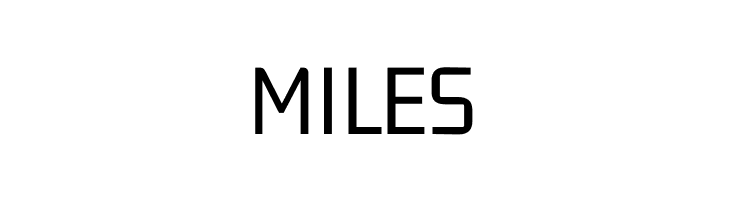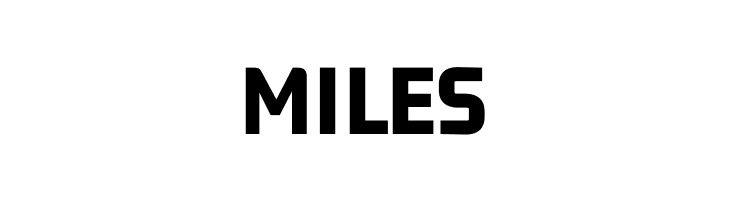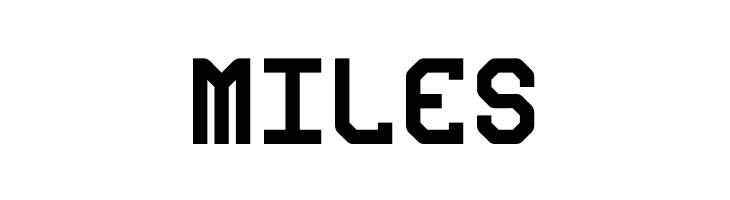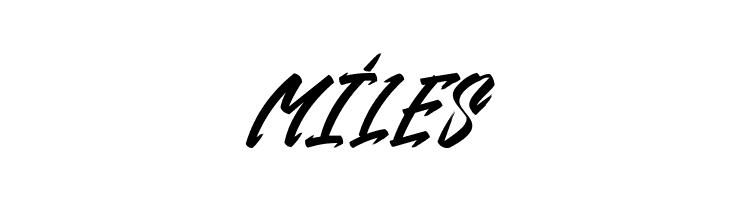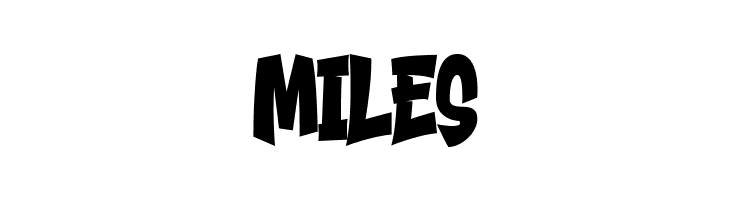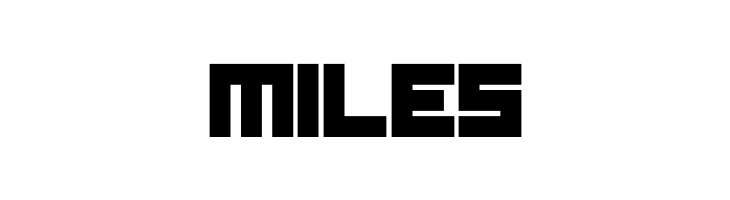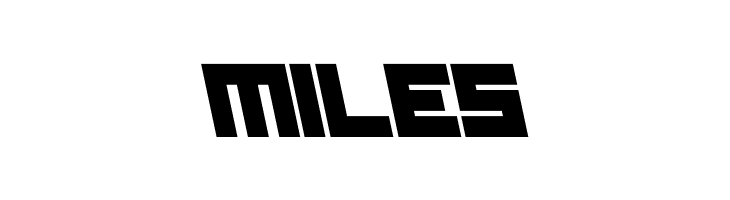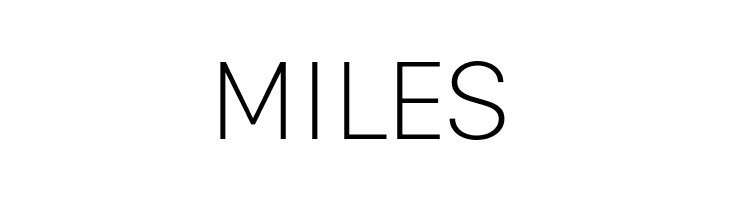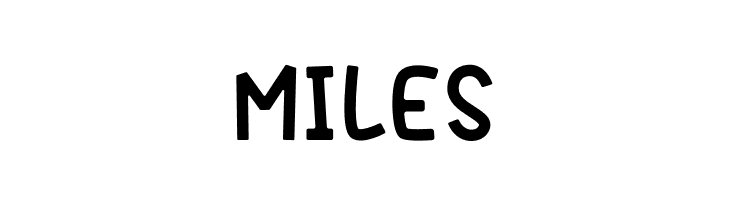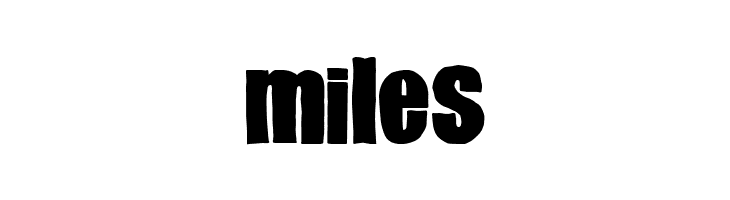
An elegant cursive script font with smooth, interconnected strokes.
A bold, handwritten font with a playful and casual style.
A playful, bold handwritten font with a whimsical and friendly appearance.
A bold, handwritten font with a playful and friendly style.
A bold, hand-painted style font with a dynamic and playful appearance.
A bold, graffiti-inspired font with angular, dynamic letterforms.
A modern, geometric sans-serif font with a clean and uniform appearance.
A bold, modern sans-serif font with clean lines and geometric shapes.
A bold, modern sans-serif font with clean lines and a strong presence.
A modern, geometric sans-serif font with a clean and minimalist design.
A modern, geometric sans-serif font with a clean and precise design.
A modern, geometric sans-serif font with consistent stroke width and clear characters.
A bold, geometric font with a futuristic and digital aesthetic.
A bold, angular, and italicized font with a futuristic style.
A clean, modern typeface with uniform strokes and balanced spacing.
An elegant, flowing script font with elongated, slanted letterforms.
Bold, geometric icons representing various gender identities.
Bold, distressed display font with irregular, blocky shapes.
A bold, playful, hand-drawn font with a casual and artistic feel.
A flowing, cursive script font with elegant curves and dynamic slant.
A bold, dynamic script font with high contrast and flowing style.
A bold, dynamic script font with flowing, cursive letterforms and dramatic flair.
A bold, expressive handwritten font with dynamic brush-like strokes.
A futuristic, segmented font with a digital and tech-inspired design.
A modern, light sans-serif font with clean lines and balanced spacing.
A bold, geometric monospaced font with a modern, technical style.
A bold, geometric font with an industrial and modern design.
A bold, outlined font with a modern, geometric style.
A modern, geometric monospaced font with rounded edges and a futuristic style.
A bold, distressed font with a rugged, grunge-like appearance.